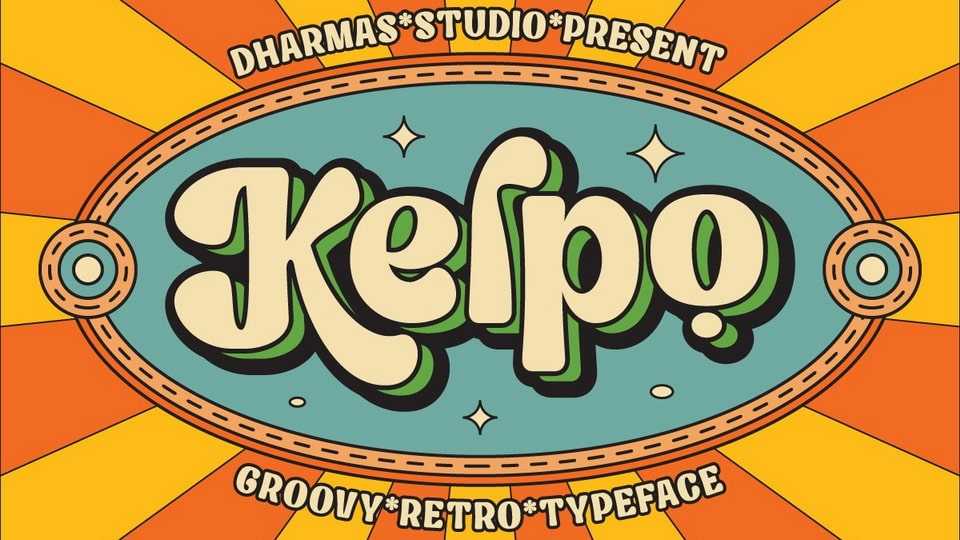
Download Kelpo font, a display typeface inspired by the 70’s retro style and pop culture visual design like old comics, cartoons, and posters. Kelpo with its strong bold character with groovy style makes us feel retro vibes and takes us to the 70’s era.